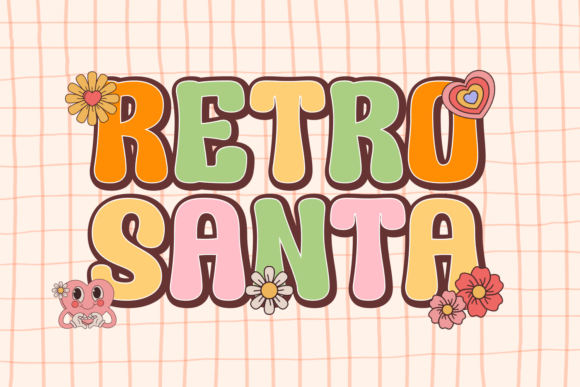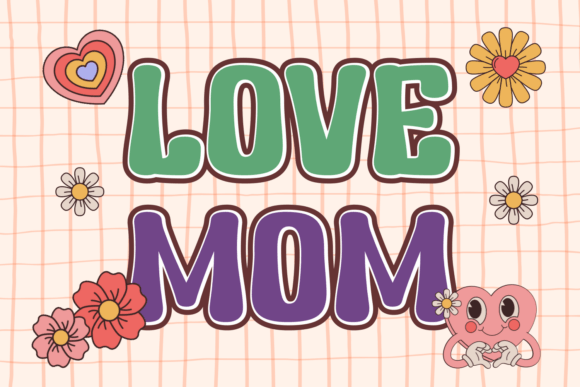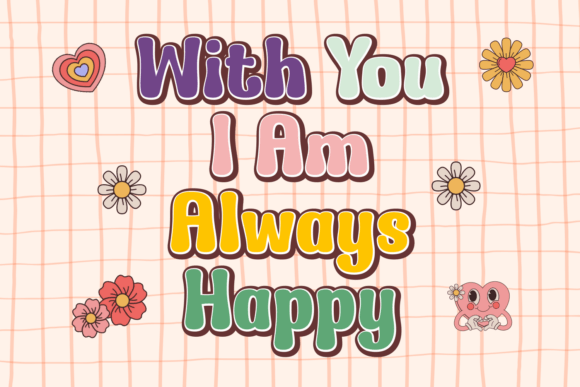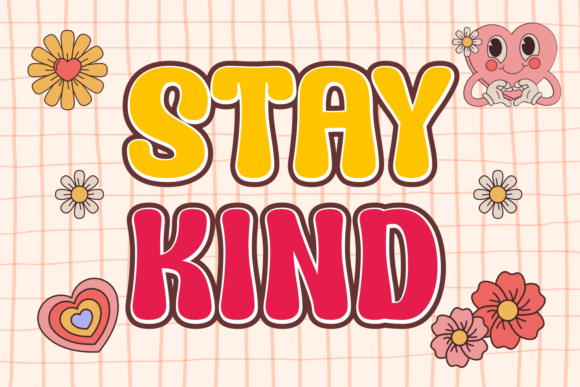
Retro Santa Font
About the Retro Santa Font
The Retro Santa Font is here to transform your projects with its distinctive character and style. Explore the exciting combination of style, elegance, and modernity with our unique font offering. Welcome to the world of authentic fonts that express the vintage charm of retro styles and the sophistication of modern designs. Presenting you the Groovy Fonts – a perfect blend of display fonts with a groovy edge. Immerse yourself in the romance of nature, spring, and love with our Flower Love Fonts, and let your words bloom.
Retro Santa Font Usage Examples
Retro Santa Font Example